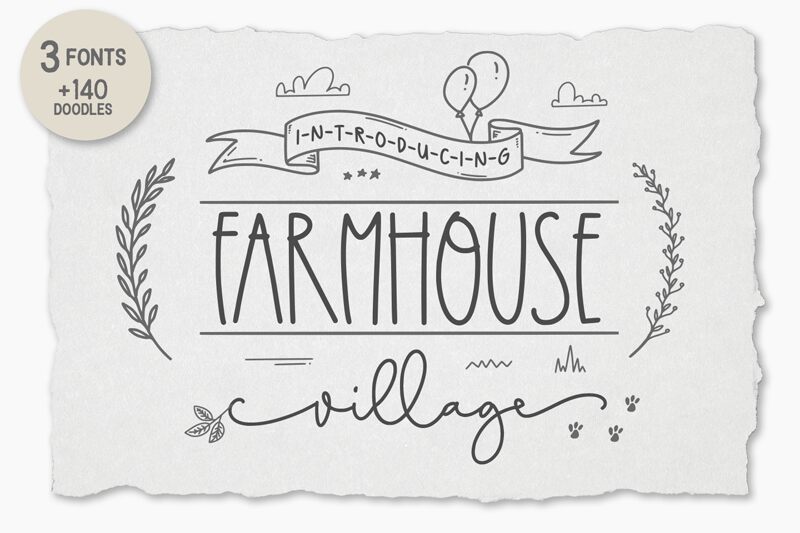
Farmhouse Village B font family by Abo Daniel Studio is a free handwritten font with 3 font styles and a modern appeal. Every variation from this set carries a unique feel inspired by modern farmhouse life. This makes its type of characters inviting and warm with an informal elegance. Also borrowing nostalgic notes, this design combines handwritten and rustic styles beautifully, adding to your cue of options for more creative designs.
Farmhouse Village B is a versatile font that lends itself to countless uses for farm-related products, cosmetics, and nature-based businesses. Also suitable for social media posts, it can add its warm vibe to packaging designs, ad posters, large banners, flyers, websites, and much more. If you would like to redecorate your home, you can equally use the font for new inspiring slogan posters and preferable wall quotes.